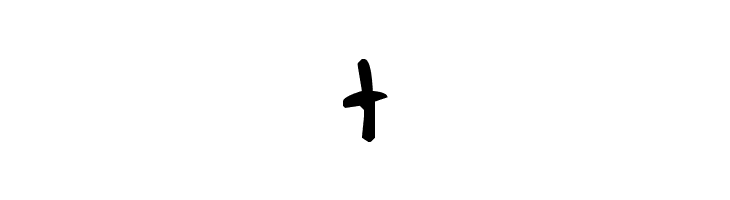
• CharpentierRenRed-Demi
A classic serif font with elegant curves and moderate contrast.
• CharpentierRenRed-DemiObl
A classic, calligraphic serif font with elegant curves and sharp serifs.
• CharpentierRenRed-Normal
A classic serif font with elegant, calligraphic influences and moderate stroke contrast.
• CharpentierRenRed-Oblique
A classic, elegant serif font with a slight oblique slant and moderate stroke contrast.
• Chayotologi
Abstract, symbolic, and geometric display font.
• CherubicInitials
Ornate, decorative initials with intricate floral and cherubic designs.
• Chewy Stewy
A playful, bold font with rounded, bubble-like characters enclosed in shapes.
• Chicken Scratch V1
• ChildrenAnimalsFriends
Cartoon animal illustrations form each character for a playful, child-friendly look.
• Chilluns
A decorative dingbat font with cartoon children illustrations.